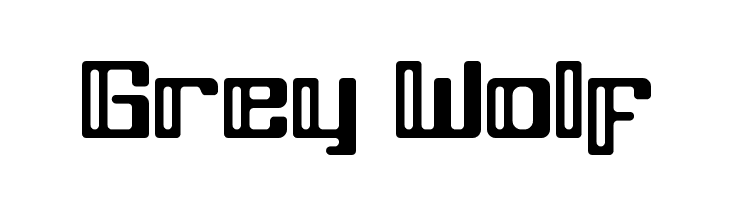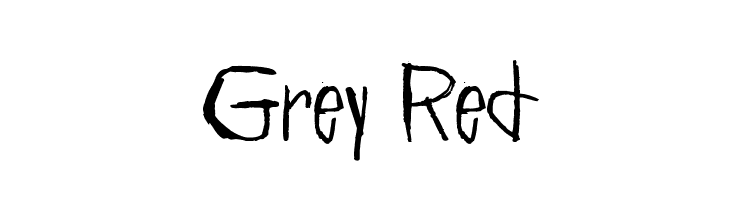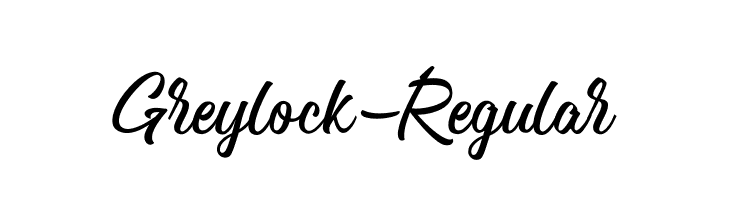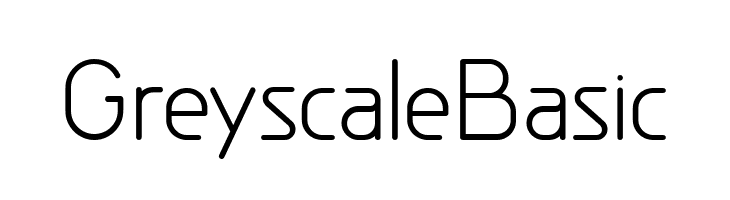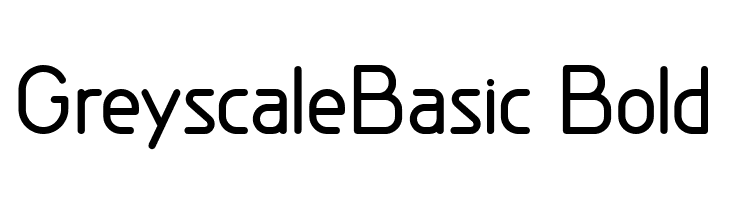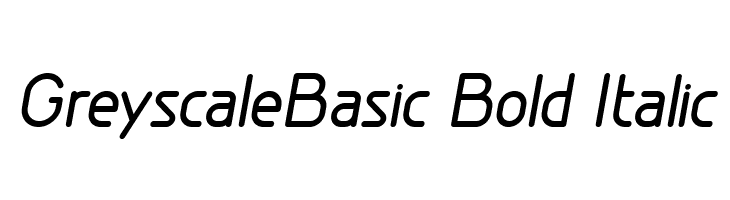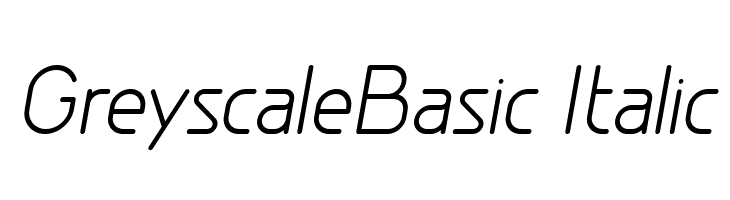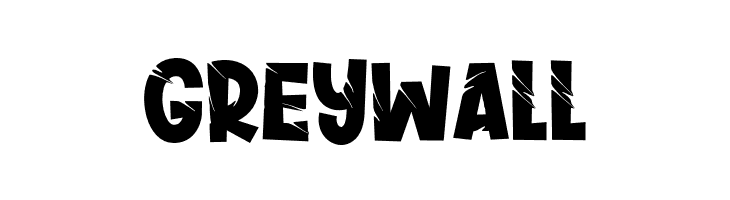
A bold, geometric font with a futuristic and digital aesthetic.
A grunge, hand-drawn font with dynamic, uneven strokes and a distressed appearance.
An elegant script font with flowing, cursive letterforms and ornate details.
A modern, cursive font with a fluid and elegant style.
A modern, geometric sans-serif font with consistent stroke width and balanced spacing.
A modern, bold sans-serif font with rounded edges and uniform stroke width.
A modern, bold, and italic font with smooth curves and balanced spacing.
A modern, italic sans-serif font with clean lines and a sleek appearance.
A bold, distressed font with a rugged, edgy appearance.